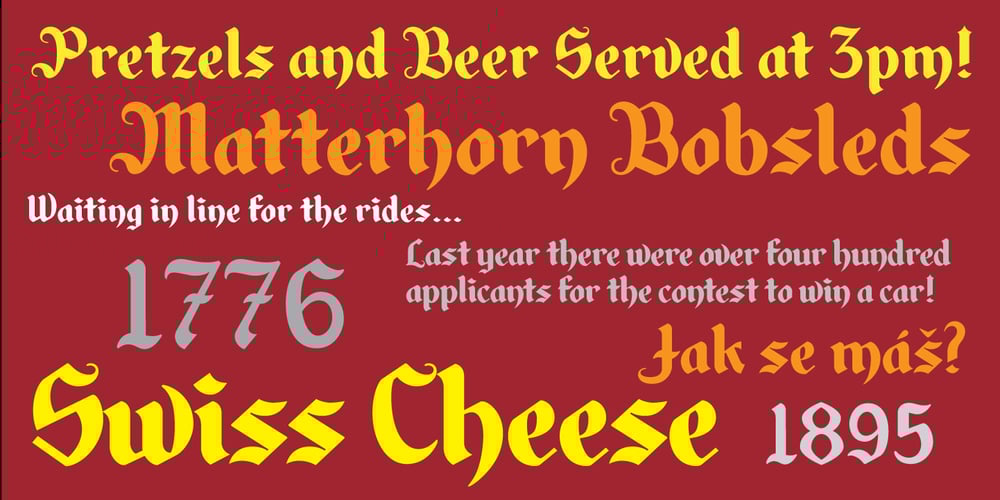
Alpengeist JF Font Family was designed by Jason Anthony Walcott and published by Jukebox Collection. Alpengeist JF contains 1 styles and family package options. This typeface was inspired by a hand lettered sign for a German-themed attraction. A good choice when a legible blackletter face is needed, this font is useful for a variety of designs or for personalizing your Alpenhorn.